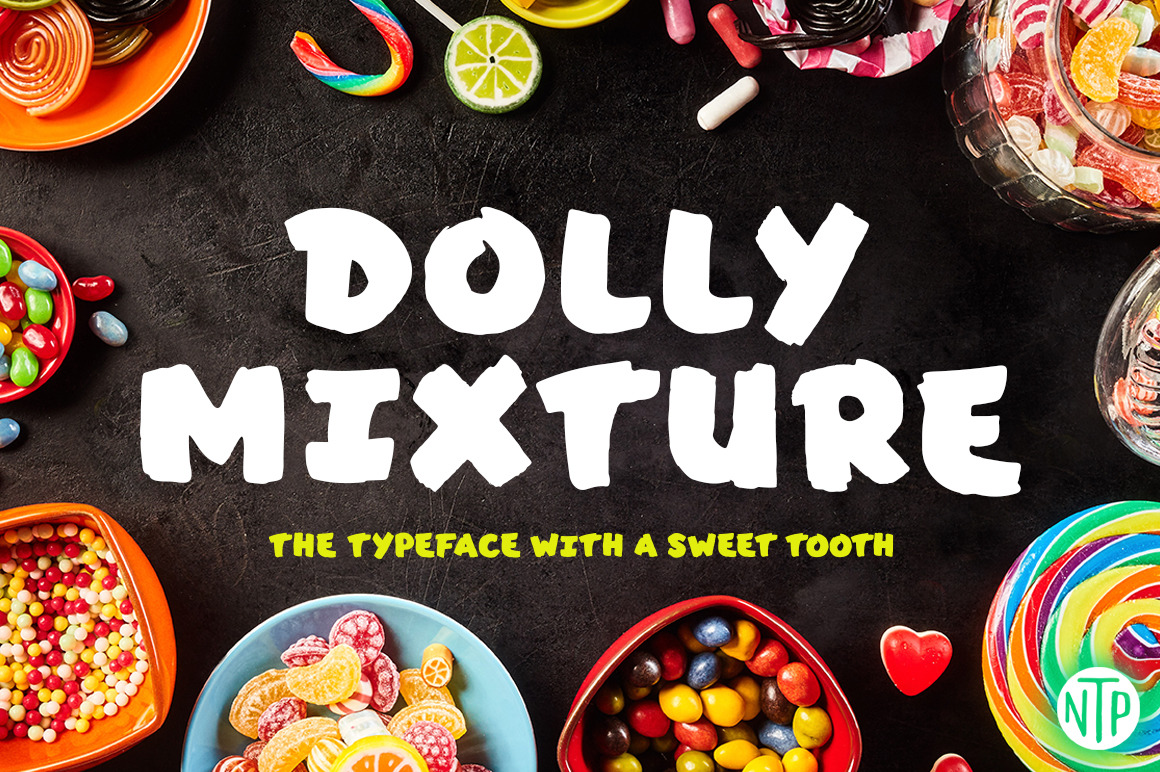
Dolly Mixture font
Introducing... Dolly Mixture. A typeface with a sweet tooth.
Dolly Mixture is a chunky sugary typeface, full of life and character. Hand drawn using a thick Sharpie and refined in Illustrator. Perfect if you need to make a bold statement.